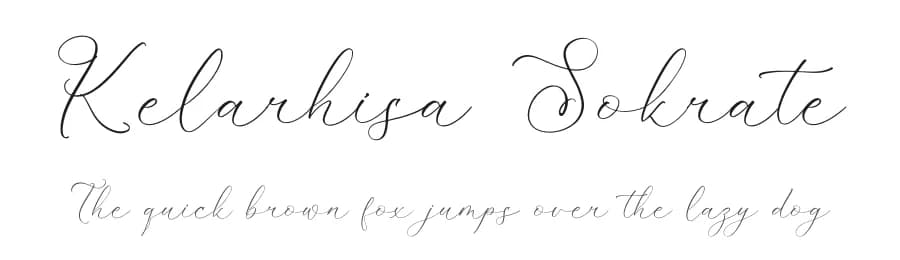
About Kelarhisa Sokrate Font
Kelarhisa Sokrate Font is a script font that shines as a display or heading face. Pair it with a clean sans-serif or serif font for body text β the contrast creates a clear hierarchy while the two styles stay balanced and easy to read.
Kelarhisa Sokrate Font